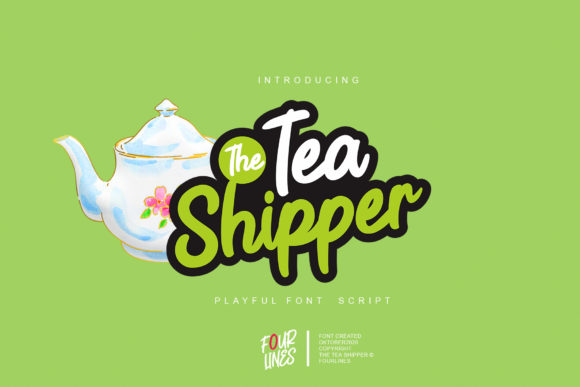
The Tea Shipper Font: A Quirky Classic for Creative Brands
There’s a certain charm in typography that feels both familiar and playful, a style that can evoke a sense of nostalgia while still feeling completely at home in a modern design. This is the sweet spot where The Tea Shipper, a retro-styled display font, finds its strength. It’s not just a collection of letters; it’s a personality waiting to be applied to your next project, offering a distinctive voice that can cut through the noise of generic sans-serifs and overused scripts.
Understanding Its Distinctive Character
At its core, The Tea Shipper is a playful and retro styled display font. Its visual appeal lies in its balanced mix of whimsy and structure. The letterforms often feature soft, rounded edges, subtle irregularities that mimic hand-lettering, and a weight that feels substantial and confident. Think of the lettering on vintage tea tins, old-fashioned apothecary labels, or classic children’s book covers. It carries that same accessible, crafted quality. This isn’t a font that tries to be sleek and minimalist; instead, it embraces a bit of characterful imperfection, making it feel warm, approachable, and full of personality. It’s a creative font that works hard to establish a mood the moment it’s read.
Where This Typeface Truly Shines
The real value of a font like The Tea Shipper is in its versatility across a surprising range of applications. Its original look will appeal to a wide range of crafty ideas, from letterheads and titles, to stationery, but its utility extends much further.
- Branding and Logo Design: For businesses that want to project friendliness, authenticity, or a handcrafted ethos—think boutique cafes, artisan bakeries, indie bookshops, or eco-friendly product lines—this typeface can become the cornerstone of a brand identity. It sets a welcoming tone immediately.
- Packaging Design: Imagine this font on a label for specialty coffee, a jar of homemade jam, or a box of artisanal chocolates. It communicates care and quality, telling a story before the customer even opens the product.
- Digital Presence: While it’s a display font best used for headlines and short bursts of text, it can make social media graphics, blog headers, and website hero sections instantly more engaging. It stops the scroll because it looks different from the standard corporate fonts.
- Print and Editorial: Use it for poster headlines, event invitations, or the title page of a magazine or zine. It brings a dynamic energy to editorial design that can draw a reader into the content.
- Merchandise and Marketing Assets: From t-shirt slogans to tote bag prints, email newsletter headers to digital product covers, The Tea Shipper adds a memorable visual hook. It’s a premium font asset that can elevate the perceived value of your merchandise.
Practical Advice for Effective Use
Choosing the right font style is just the first step. To use a display typeface like this effectively, you need a strategy. The key is to match the typography to your project’s goals and audience. A font with this much personality isn’t the right fit for a corporate law firm’s annual report, but it’s perfect for a children’s birthday party invitation or a local farmer’s market poster.
One of the most critical steps is testing font pairings. The Tea Shipper is a star performer, but it needs a supporting cast. Pair it with a clean, simple sans-serif font for body text. This creates a beautiful contrast, letting the display font command attention for headlines while ensuring your longer paragraphs remain highly readable. Think of it like a great outfit: a bold statement piece paired with classic, understated basics.
Always review the included font styles. Does it come with alternates, ligatures, or different weights? These extras can provide even more creative flexibility, allowing you to customize the look and avoid repetition in your designs. Furthermore, for any commercial project, understanding the licensing considerations is non-negotiable. Ensure you have the appropriate license for your intended use, whether for a single client project, unlimited social media graphics, or physical merchandise production.
Making It Work for Your Audience
Ultimately, typography is a tool for communication. The goal is to improve visual consistency and brand recognition. When you use a distinctive font like The Tea Shipper consistently across your touchpoints—from your website to your packaging to your Instagram stories—you create a cohesive visual language that your audience begins to recognize and associate with your brand.
This recognition builds trust. But never sacrifice readability for style. Use this font where it has room to breathe: in large headlines, pull quotes, or short, impactful statements. Avoid setting entire paragraphs in it, as its decorative nature can make dense text tiring to read. Instead, use it to engage your audience with a burst of visual interest, then guide them into clearer, simpler type for the details.
Whether you’re a designer crafting a new brand identity, a small business owner looking for that perfect logo design, or a content creator wanting to spice up your social media graphics, a typeface with a strong, retro character offers a practical solution. It provides a ready-made personality that can help tell your story more effectively, making your projects feel more polished, intentional, and engaging. The right design asset doesn’t just look good; it works hard to connect with people. This particular typeface, with its unique blend of playfulness and nostalgia, is built to do exactly that.